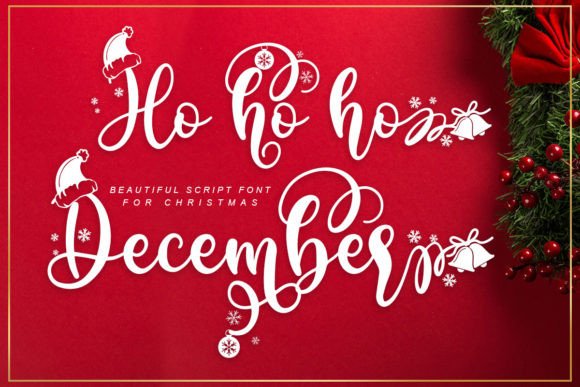
Behold, the enchanting Ho Ho Ho December font, a script typeface that radiates festive cheer like a sparkling Christmas ornament! This delightful creation by Al Mughni Studio3 is the ultimate font for capturing the magic of the holiday season. Its playful and joyful essence will add a touch of heartwarming charm to all your Christmas and holiday-themed designs, making them truly unforgettable.
With Ho Ho Ho December, you can effortlessly craft stunning invitations, heartfelt holiday greeting cards, eye-catching social media posts, and any other design project that calls for a dash of festive delight. Its whimsical strokes, reminiscent of candy canes and gingerbread cookies, will instantly transport you to a winter wonderland where dreams come true.
This font is not just a collection of letters and symbols; it's a gateway to a world of festive enchantment. Its PUA encoding allows you to access a treasure trove of glyphs and ligatures with remarkable ease. Unleash your creativity and let the Ho Ho Ho December font guide you on a journey of festive expression, where each design becomes a masterpiece of joyful artistry.
Imagine the smiles on the faces of your loved ones as they receive a heartfelt holiday greeting card adorned with the Ho Ho Ho December font. Its warm and inviting style will envelop them in a blanket of holiday cheer, reminding them of the true magic of the season. Or picture the awe-inspiring social media posts you'll create, captivating your audience with the font's irresistible charm.
Ho Ho Ho December is more than just a font; it's a celebration of the spirit of Christmas and a testament to the power of creativity. Embrace the holiday magic and let this font transform your designs into works of art that spread joy and wonder wherever they go.